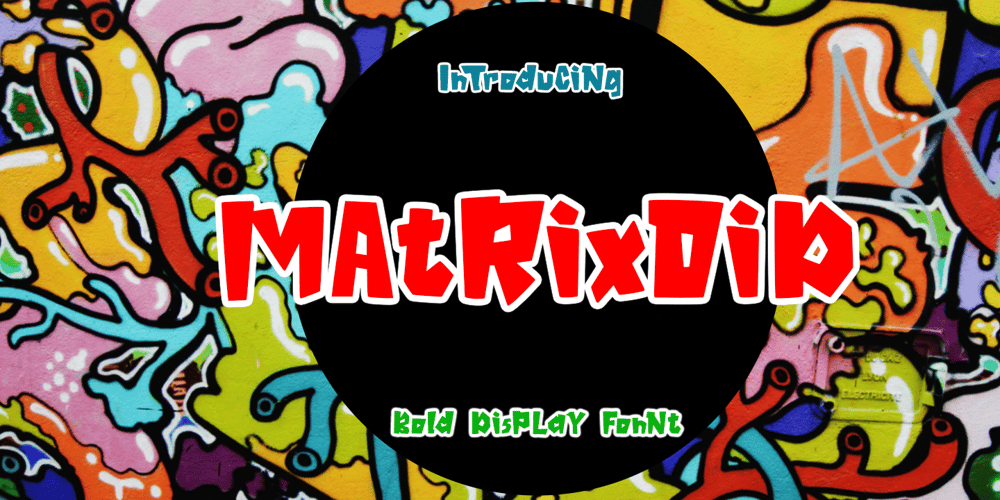
Matrixoid
Matrixoid font
Matrixoid Font Family was designed by Sarwo Edhi Prayitno and published by Haksen. Matrixoid contains 3 styles and family package options. Matrixoid come with natural taste of letters. with the real hand done I created them, also additional variation in outline font to make good sensation feel.When you type with this font, I believe you will enjoy the sensation of the natural feel of this font, equipped with ligature and outline version features make the display even stronger for your projects such as posters, logos, advertisements, book covers and all brands for your requirement.I recommend for you to use photoshop or illustrator to make design with this font and let see when you will say WOW :)So what include when You want to use them ? OTF files Ligatures Numbers + Punctuation Non-English support Ligatures Please contact me if anything question, I’m glad to help :)Happy Designing,Haksen